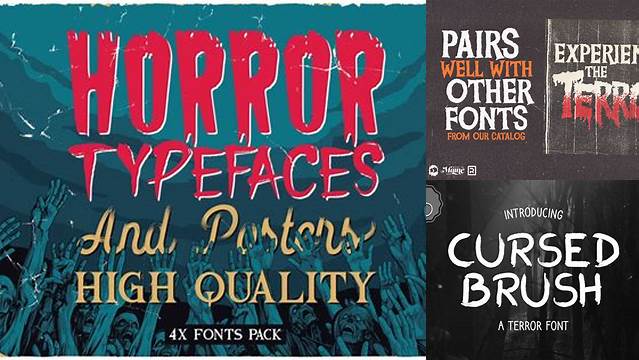
Scary Fonts: The Ultimate Guide To Horror Typefaces
Hey guys! Are you looking to add a chilling touch to your designs? Horror fonts are your secret weapon! They can transform ordinary text into something truly terrifying. Whether you're crafting a spooky movie poster, designing a spine-chilling game interface, or just want to give your social media posts an eerie vibe, the right font is crucial. But with so many options out there, finding the perfect horror font can feel like wandering through a haunted maze. Don't worry, though! I'm here to guide you through the shadowy world of horror fonts and help you discover the ones that will make your audience scream…with delight, of course! Choosing the perfect font is not just about aesthetics; it's about conveying the right mood and emotion. A well-chosen font can evoke feelings of dread, suspense, and sheer terror, while a poorly chosen one can fall flat and fail to capture the intended atmosphere. Think about the classic horror movies – the titles themselves often utilize distinctive fonts that immediately set the tone for what's to come. The jagged edges, dripping effects, and distorted letterforms all contribute to the overall sense of unease. So, what makes a font truly terrifying? Let's dive into the characteristics that define the best horror fonts. We'll explore everything from the visual cues that trigger fear to the psychological impact of different font styles. By the end of this article, you'll be a horror font expert, ready to create designs that will haunt the dreams of your viewers. So, buckle up, turn down the lights, and let's explore the world of horror fonts together!
What Makes a Font a Horror Font?
Okay, so what exactly makes a font scream “horror?” It's not just about making the letters look scary; there's a whole psychology behind it! Horror fonts often play on our primal fears, using visual cues that trigger feelings of unease and dread. Think about it: jagged edges might remind you of sharp teeth or broken glass, while dripping effects can evoke images of blood or decay. The best horror fonts leverage these associations to create a powerful impact. Key elements that define horror fonts include: Distorted Letterforms: Imagine letters that are warped, twisted, or even partially obscured. These distortions can create a sense of unease and disorientation, making the text feel unsettling. Jagged Edges and Sharp Angles: Sharp, uneven edges can mimic the look of claws, teeth, or shattered objects, instantly conveying a sense of danger. Think of fonts that look like they've been carved into stone or scratched into a wall. Dripping Effects: Fonts that appear to be dripping or bleeding are a classic horror trope. This effect can evoke feelings of blood, decay, or some other viscous, unpleasant substance. Heavy and Bold Styles: A thick, heavy font can feel imposing and oppressive, adding to the overall sense of dread. Imagine a title card looming over you, its weight pressing down on your psyche. Uneven Spacing and Kerning: Inconsistent spacing between letters can create a sense of unease and imbalance. It's like something is just…off, and that feeling can be deeply unsettling. Textured Surfaces: Fonts with a rough, textured appearance can evoke the feeling of old, decaying materials like wood, stone, or parchment. This can add a layer of historical creepiness to your design. Beyond these visual cues, the effectiveness of a horror font also depends on its context. A font that looks terrifying on a movie poster might seem comical on a children's birthday invitation. It's important to consider the overall tone and message of your project when choosing a font. And let's not forget the psychological impact of color! Pairing a horror font with a dark, moody color palette can amplify its effect, while using bright, cheerful colors might undermine the intended sense of dread. Think of classic horror color schemes like deep reds, blacks, and grimy greens. These colors are often associated with blood, shadows, and decay, further enhancing the scary vibes. So, now that we know what makes a font truly terrifying, let's explore some specific examples and categories of horror fonts that you can use in your next project!
Popular Horror Font Styles and Examples
Alright, let's get to the fun part: exploring some actual horror font styles! There's a whole graveyard of options out there, each with its own unique way of sending shivers down your spine. We'll look at some classic styles and then dive into some specific examples that you can use in your designs. So grab your flashlight, and let's venture into the font crypt! First up, we have the dripping fonts. These are a staple in the horror genre, instantly evoking images of blood, slime, or some other gruesome substance. Think of movie titles like “The Blob” or “Nightmare on Elm Street” – dripping fonts are all over the horror landscape. They're perfect for posters, game titles, and anything that needs a visceral, unsettling feel. Another popular style is the scratchy or distressed font. These fonts look like they've been carved into stone, scratched onto a wall, or written with a shaky hand. They often have uneven edges and a rough texture, which can create a sense of age, decay, and madness. These fonts are great for adding a touch of historical horror or psychological terror to your designs. Next, we have creepy handwritten fonts. These fonts mimic the look of handwriting, but with a sinister twist. Think of a serial killer's diary or a ransom note – these fonts have a personal, unsettling feel that can be incredibly effective. They often feature irregular letterforms, shaky lines, and a general sense of unease. Gothic fonts are another classic choice for horror designs. With their ornate, dramatic letterforms, Gothic fonts evoke a sense of history, mystery, and the supernatural. They're perfect for anything with a medieval or Victorian horror theme. Think of classic vampire stories or haunted castles – Gothic fonts can instantly transport your audience to another time and place. Finally, we have distorted fonts, which are fonts that have been warped, twisted, or otherwise altered to create a sense of unease. These fonts can range from subtly unsettling to completely unreadable, depending on the level of distortion. They're great for adding a touch of the surreal or the psychological to your designs. Okay, so those are some general styles. Now let's look at some specific examples! Names like “Creepster”, “Friday 13th”, and “Bloodlust” often come up when discussing popular horror fonts. Each of these fonts has its own unique characteristics, but they all share the ability to evoke a sense of fear and dread. There are also tons of free horror fonts available online, so you don't have to break the bank to create a terrifying design. Websites like DaFont and FontSpace offer a huge selection of free fonts, including many that are perfect for horror projects. Just be sure to check the licensing terms before you use any font in a commercial project. So, with all these options, how do you choose the right horror font for your project? Let's talk about that next!
Choosing the Right Font for Your Horror Project
Okay, guys, you've got a killer concept for your horror project, and you know the styles of horror fonts you're into. But how do you actually pick the one? Choosing the right font is like casting the perfect actor for a role – it can make or break the whole production! The key is to consider the overall tone and message of your project. What kind of fear are you trying to evoke? Are you going for a classic, gothic horror vibe? Or something more modern and psychological? The font you choose should align with the specific type of horror you're aiming for. Think about the context in which the font will be used. Is it for a movie poster, a game title, a website, or something else? A font that looks great on a large poster might be illegible on a small screen. Consider the size and resolution at which the font will be displayed. Legibility is crucial, even in horror! If your audience can't read your message, the fear factor will be lost. While horror fonts are meant to be unsettling, they shouldn't be so distorted or illegible that they become frustrating to read. Test your font choice in different sizes and contexts to make sure it remains clear. Think about the other design elements in your project. How does the font interact with the colors, images, and other visual elements? The font should complement the overall design, not clash with it. A horror font paired with a bright, cheerful color palette might not be as effective as one paired with dark, moody colors. Experiment with different font pairings. Sometimes, combining a horror font with a more neutral font can create a striking contrast and add depth to your design. For example, you might use a dripping font for the title and a clean, sans-serif font for the body text. Don't be afraid to try something unexpected! Once you've chosen a font, think about how you can use it creatively. Experiment with different sizes, weights, and styles to see what works best. You might also consider adding special effects, like shadows, glows, or textures, to further enhance the horror vibe. For example, a dripping font with a subtle shadow can look even more menacing. Remember, the goal is to create a font that not only looks scary but also conveys your message effectively. So, take your time, experiment with different options, and don't be afraid to break the rules. The world of horror fonts is vast and varied, so there's sure to be the perfect font out there for your project. And hey, if you're still feeling overwhelmed, don't hesitate to ask for feedback from other designers or horror fans. A fresh perspective can often help you see things in a new light. Now that we've covered how to choose the right font, let's talk about where you can find these terrifying typefaces!
Where to Find the Best Horror Fonts
Okay, so you're ready to unleash some font-based terror, but where do you actually find these creepy creations? Don't worry, the internet is a treasure trove of horror fonts, both free and premium. Let's explore some of the best places to hunt down the perfect font for your project. First up, we have the free font websites. These sites are a great resource for finding high-quality horror fonts without breaking the bank. DaFont and FontSpace are two of the most popular free font websites, offering a huge selection of fonts in various styles, including plenty of options for horror projects. BeFonts is another great option. These sites allow you to browse fonts by category, style, and even designer, making it easy to find what you're looking for. However, it's important to remember to always check the licensing terms before using any free font in a commercial project. Some fonts may be free for personal use but require a license for commercial use. Make sure you understand the terms before you start using a font in your work. Next, we have the premium font marketplaces. These sites offer a curated selection of high-quality fonts, often designed by professional type designers. While you'll have to pay for these fonts, they can be a worthwhile investment if you're looking for something truly unique and professional. MyFonts and Creative Market are two of the most popular premium font marketplaces. These sites offer a wide variety of fonts, including many that are perfect for horror projects. They also often have special deals and bundles, so you can save money on your font purchases. Another great option is to look for fonts created by independent designers. Many talented designers sell their fonts directly through their own websites or online marketplaces. Supporting independent designers is a great way to get unique, high-quality fonts and help the design community. You can find independent font designers on platforms like Behance and Dribbble, or by searching for them directly on Google. Don't forget to check out font bundles. Font bundles are collections of fonts offered at a discounted price. They can be a great way to get a variety of horror fonts for a fraction of the cost of buying them individually. Creative Market and Design Cuts often offer font bundles, so be sure to check them out. Finally, don't be afraid to experiment with different search terms when looking for horror fonts. Try searching for terms like “scary fonts,” “creepy fonts,” “Halloween fonts,” or even specific horror themes like “vampire fonts” or “zombie fonts.” You never know what you might find! With a little bit of digging, you're sure to discover a treasure trove of terrifying typefaces that will take your horror designs to the next level. Now that you know where to find them, go forth and create some truly spooky designs!
Conclusion: Embrace the Fear with the Perfect Font
So there you have it, guys! We've journeyed through the eerie landscape of horror fonts, explored their chilling characteristics, and uncovered the best places to find them. Now it's your turn to embrace the fear and unleash your creativity! Remember, the perfect horror font can transform your designs from ordinary to extraordinary, adding a touch of terror and suspense that will captivate your audience. Whether you're designing a spooky movie poster, crafting a spine-chilling game interface, or just want to give your social media posts an eerie vibe, the right font is crucial. We've discussed the key elements that make a font truly terrifying, from distorted letterforms and jagged edges to dripping effects and heavy styles. We've also explored different styles of horror fonts, including dripping fonts, scratchy fonts, creepy handwritten fonts, Gothic fonts, and distorted fonts. And we've looked at specific examples of popular horror fonts, as well as where to find them online. Choosing the right font is not just about aesthetics; it's about conveying the right mood and emotion. A well-chosen font can evoke feelings of dread, suspense, and sheer terror, while a poorly chosen one can fall flat and fail to capture the intended atmosphere. Consider the overall tone and message of your project when choosing a font. What kind of fear are you trying to evoke? Are you going for a classic, gothic horror vibe? Or something more modern and psychological? The font you choose should align with the specific type of horror you're aiming for. And don't be afraid to experiment! Try different fonts, font pairings, and special effects to see what works best for your project. The world of horror fonts is vast and varied, so there's sure to be the perfect font out there for you. So, go forth, explore the darkness, and create some truly terrifying designs! The power to scare is in your hands…or rather, your font library! Happy haunting, guys!